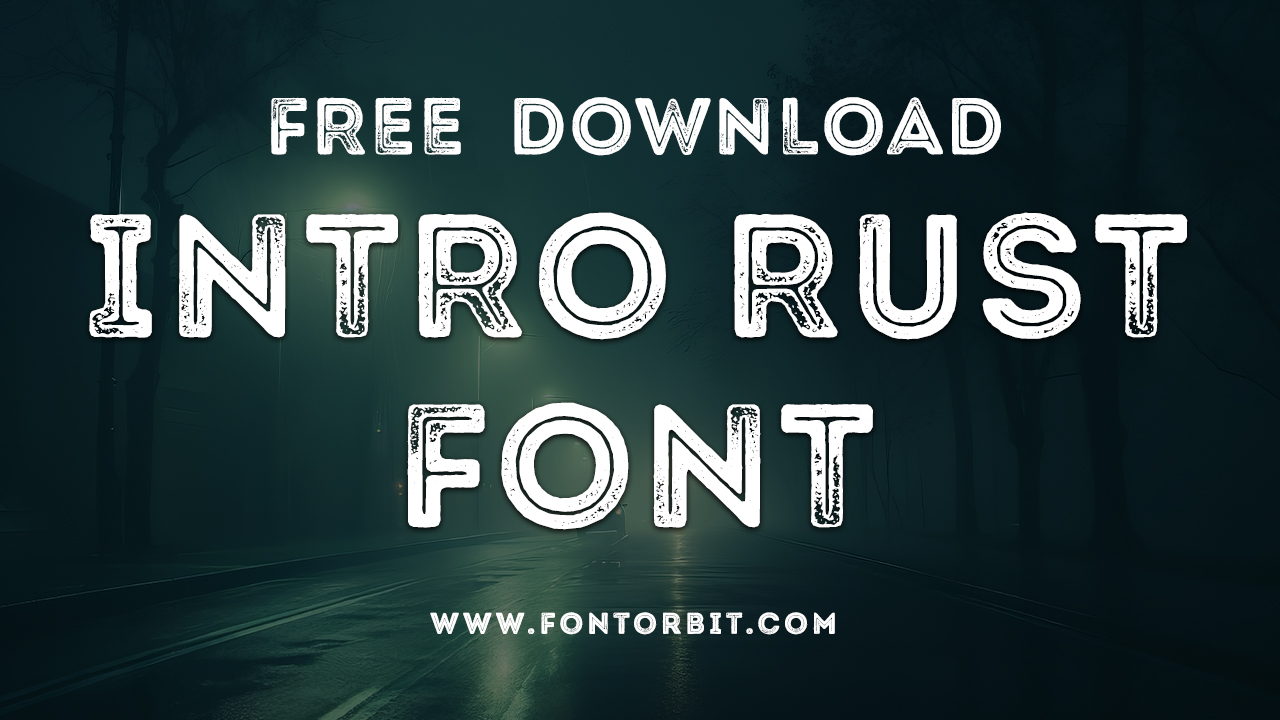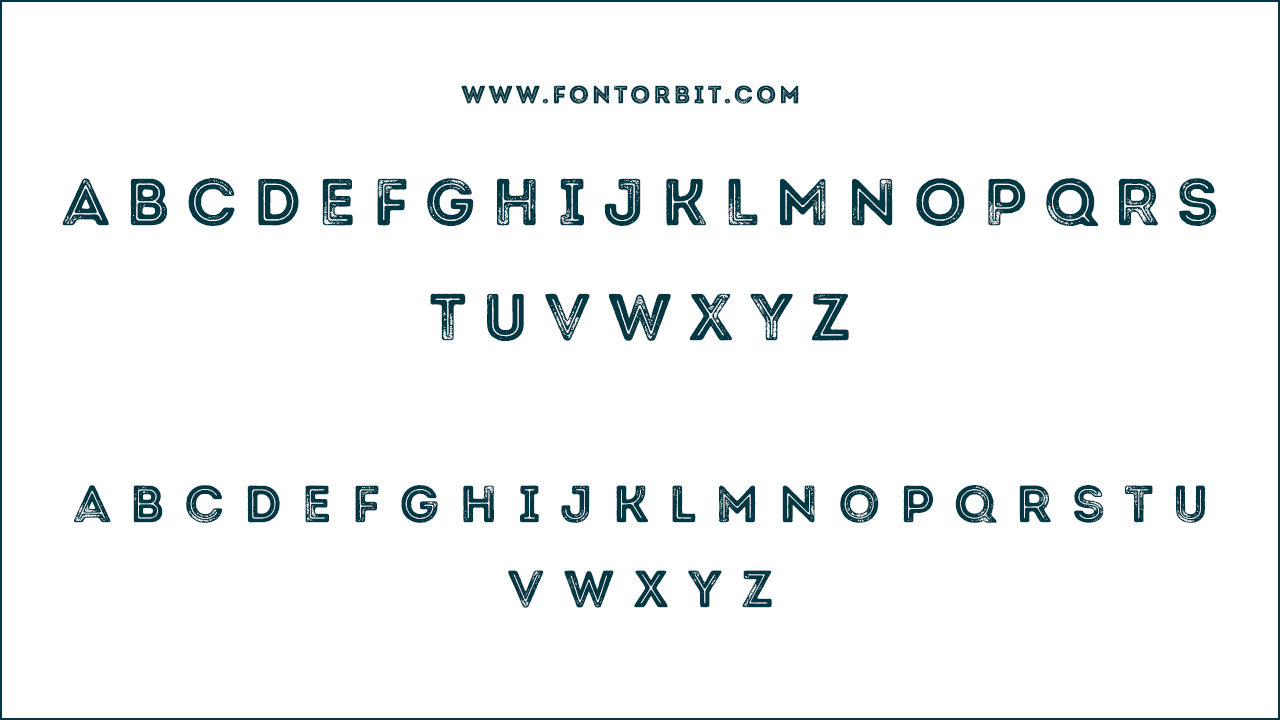
This unique font family combines rustic charm with modern design, offering a broad range of styles for diverse creative needs.
Intro Rust Font features a rich array of styles, each contributing to its distinct vintage and textured aesthetic. The font family comprises four sub-families: Intro Rust, Intro Script, Intro Head, and Intro Goodies. This is one of the biggest packages on the market, including 214 fonts. Here are the styles available for free download.
Intro Rust Font is ideal for projects seeking a vintage or rugged aesthetic, excelling in print materials such as posters and brochures with a nostalgic feel. It enhances web design with its unique, textured appearance, and adds a retro or rustic flair to branding efforts.
Perfect for designing standout product packaging, stylish event invitations, and diverse creative projects, Intro Rust Font brings a distinctive, memorable touch to any design endeavor.
Intro Rust Font captures the essence of vintage design with its diverse styles and distinctive textures. Its combination of display, script, and rustic elements makes it a versatile choice for a variety of creative projects. Pair Intro Rust Font with modern typefaces to balance its unique look and enhance visual impact.
1.Is Intro Rust Font Suitable For All Types Of Design Projects?
Intro Rust Font is best for projects requiring a vintage or rustic aesthetic. It excels in creating impactful headlines and branding but may not be ideal for formal or minimalist designs.
2.What Makes Intro Rust Font Different From Other Vintage Fonts?
Intro Rust Font distinguishes itself with its combination of display, script, and rust styles, offering a comprehensive range that captures a unique, retro charm.
3.What Are The Popular Uses Of Intro Rust Font?
Intro Rust Font is widely used in print materials, web design, branding, product packaging, and creative projects that seek a vintage or rustic style.
4.What Are The Design Principles Behind Intro Rust Font?
The design principles focus on vintage aesthetics, versatility, and a rugged texture. The font combines various styles to provide a unique and expressive look for diverse projects.
5.What Color Palette Is Typically Used With Intro Rust Font?
Intro Rust Font pairs well with earthy, muted tones or bold contrasts to highlight its textured quality. High-contrast color schemes often enhance its visual impact and rustic charm.